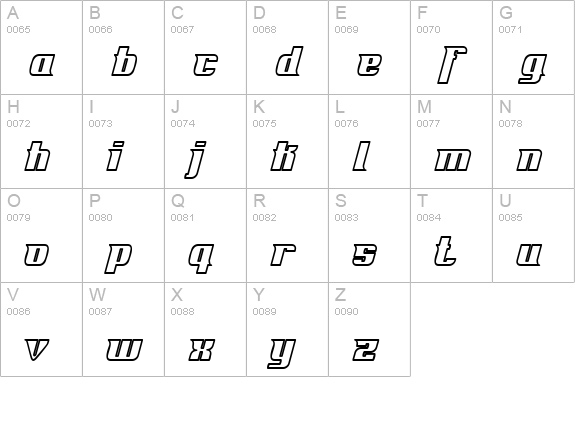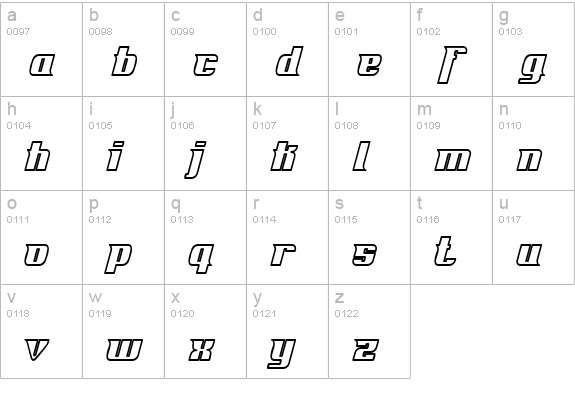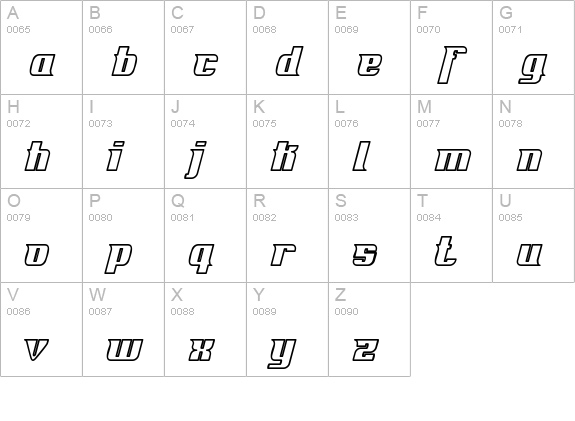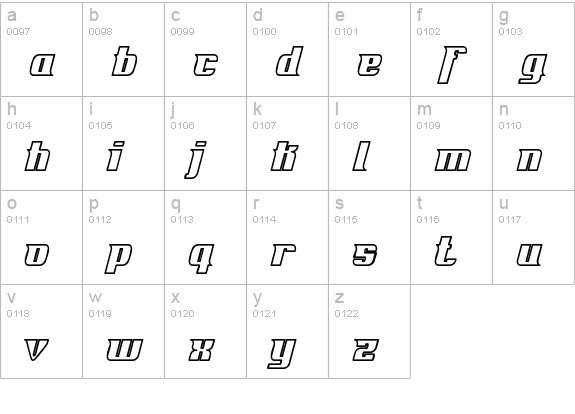
Fontovision IV outline Font Details
Fontovision IV outline font is a stunning display typeface that exudes elegance and modernity. Its sleek and sophisticated design makes it perfect for various design projects, from logos to posters and everything in between. The clean lines and intricate details of this font truly set it apart from the rest, giving your work a unique and professional touch. What's even better is that Fontovision IV outline font is available for free download at FontsMarket.com. Yes, you read that right - this exceptional font can be yours at no cost, allowing you to enhance your designs without breaking the bank. Don't miss out on the opportunity to add Fontovision IV outline font to your collection and take your projects to the next level. Download it today and see the difference it can make!